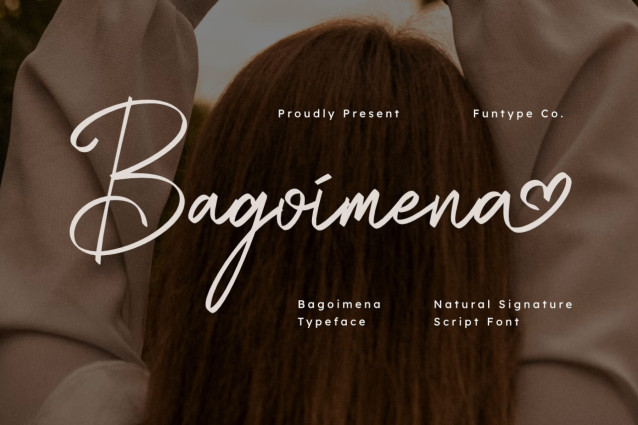
Bagoimena Font
Bagoimena is an elegant and flowing natural signature script font designed for high-impact romance and precise typography. Featuring a unique and beautiful heart swash at the end of its strokes, this font is perfect for personal signatures, wedding invitations, premium boutique logos, sweet branding, and high-end crafting projects.